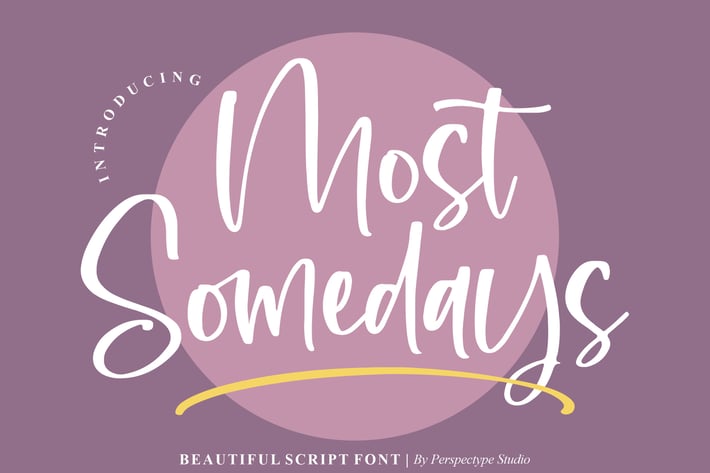
Most Somedays Script Font
Most Somedays is a beautiful script font with energetic brush strokes and a playful, hand-painted feel. Its light and flowing curves bring a sense of optimism and creativity to any design—ideal for lifestyle brands, uplifting quotes, and modern stationery. With its casual yet refined style, this font makes every project feel warm and inviting.
+ Single Regular style with extensive brush-inspired alternates
+ Includes swashes and stylistic ligatures for custom flair
+ Natural, hand-drawn texture for authentic appeal
Perfect for:
+ Motivational quotes & social media graphics
+ Lifestyle & wellness branding
+ Wedding stationery & greeting cards
+ Product packaging & labels
+ Personal crafts & DIY projects
Bring warmth and personality to your designs with Most Somedays.